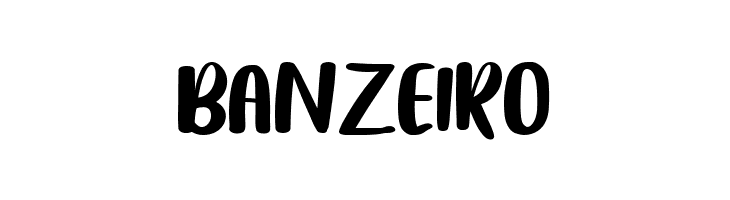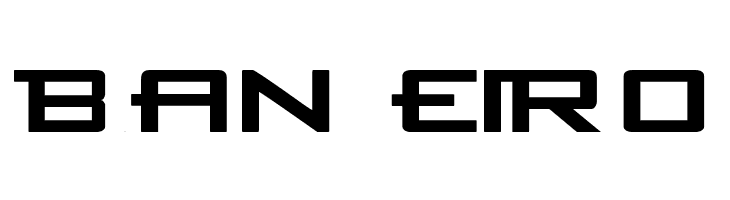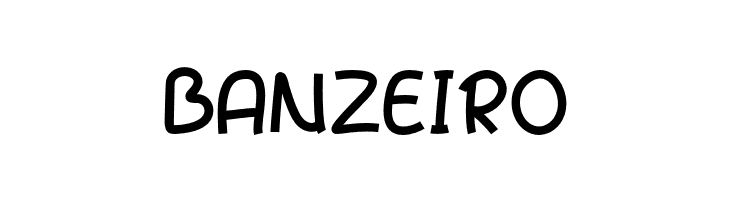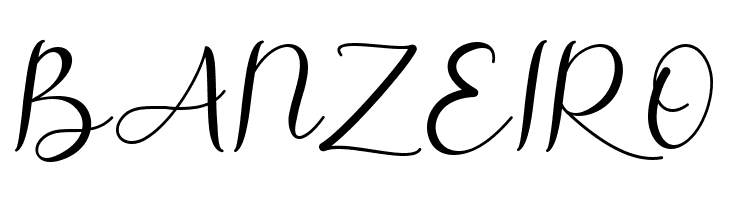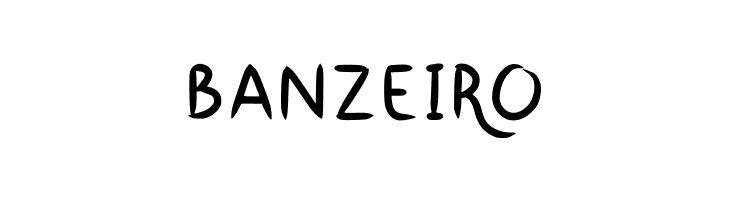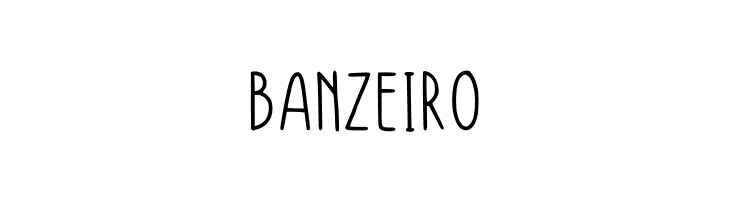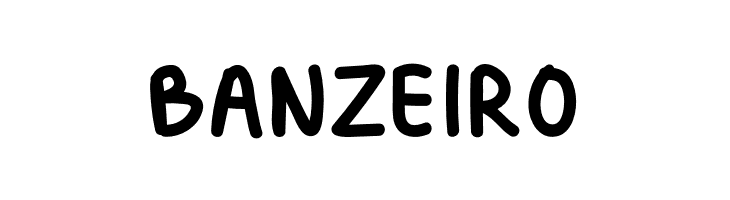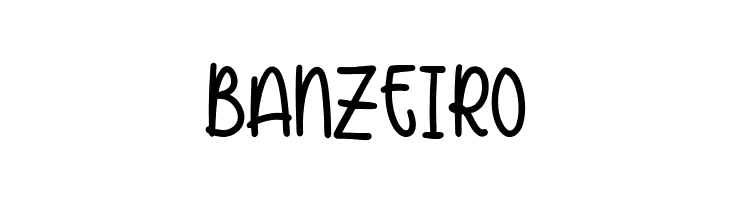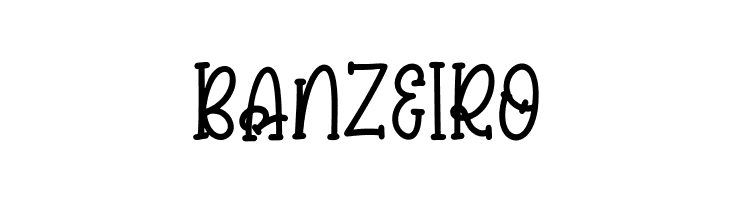
A playful, bold font with rounded, bubbly characters and a whimsical style.
A bold, expressive script font with interconnected characters and dynamic flow.
A bold, cursive font with fluid strokes and dynamic curves.
A bold, punk-inspired font with jagged, dynamic characters.
A bold, playful handwritten font with a modern and decorative style.
A playful, handwritten font with a whimsical and friendly style.
A playful, hand-drawn font with bold, rounded characters and whimsical curves.
A dynamic and expressive handwritten font with fluid strokes.
An elegant script font with flowing, graceful strokes and high contrast.
A bold, rounded font with a modern and approachable style.
A romantic and whimsical script font with elegant curves and playful accents.
A playful, decorative font with star-like embellishments on each character.
An elegant script font with flowing, interconnected letters and ornate flourishes.
A bold, playful font with rounded, hand-drawn characters.
A playful, handwritten font with smooth, rounded edges and a casual style.
A classic serif font with elegant curves and a refined appearance.
A playful, wavy outline font with a hand-drawn, doodle-like appearance.
A bold, graffiti-inspired font with a playful and energetic style.
A bold, handwritten script font with a dynamic and fluid style.
A lively and fluid script font with a handwritten feel.
A bold, modern font with sharp angles and a cohesive design.
A bold, cursive script font with elegant, flowing strokes.
A bold, expressive script font with flowing, connected letterforms.
A bold, expressive script font with flowing cursive letterforms and elegant swashes.
A flowing, cursive font with a handwritten, elegant style.
A bold, geometric font with a futuristic and technical design.
A playful, hand-drawn font with rounded, irregular strokes.
A modern, playful font with continuous, flowing lines and rounded edges.
A playful, bold handwritten font with rounded edges and a casual style.
A playful handwritten font with smooth, rounded strokes and a casual, friendly appearance.
A playful, cursive font with dynamic strokes and elegant flow.
A bold blackletter font with sharp, angular lines and a gothic aesthetic.
A bold, expressive brush-style font with dynamic strokes and artistic flair.